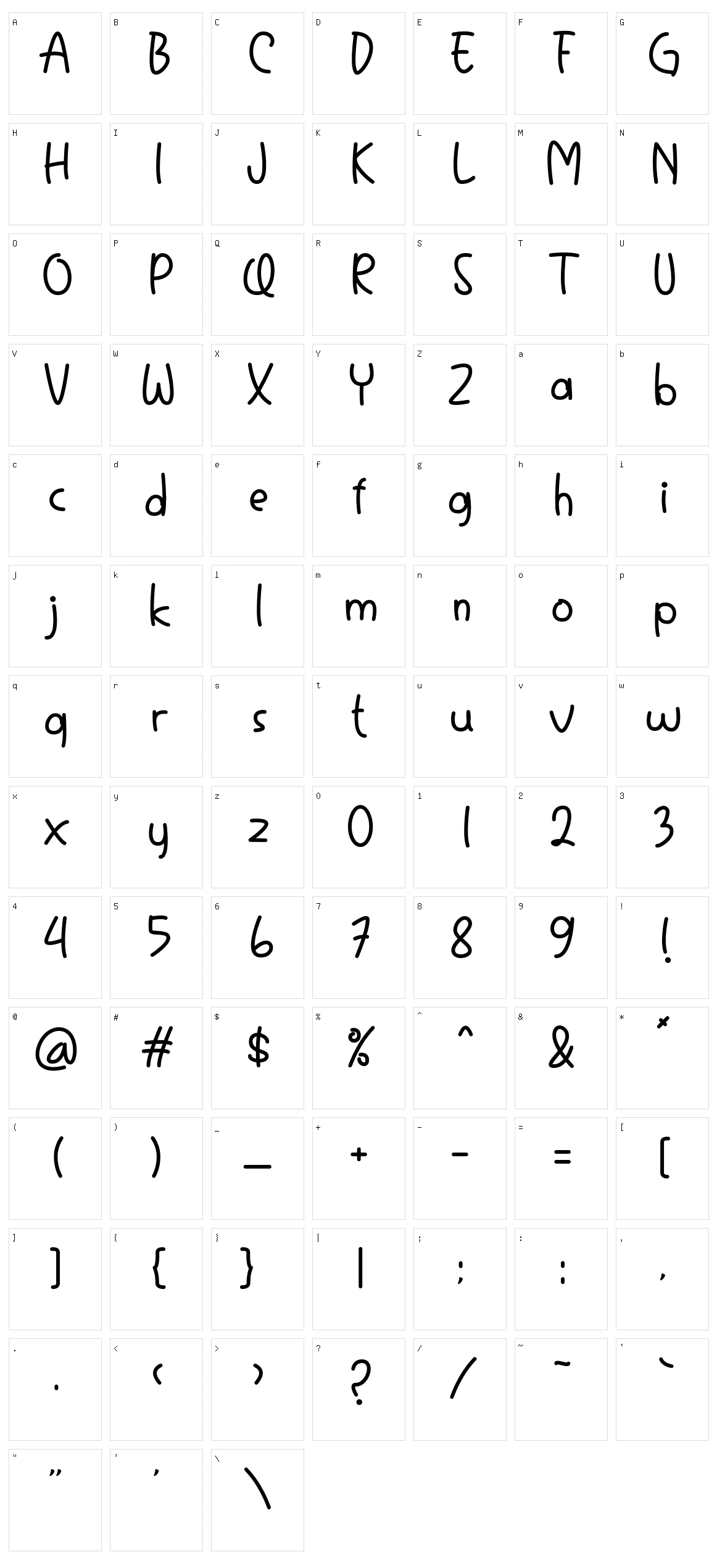
The free font Tomodachy is carefully designed by Jehoo Creative, showcasing a thoughtful balance of creativity and usability and falls under the Cartoon font style. When you download the ZIP file, it contains only 330.84 KB of font files, making it lightweight and quick to download. Please review the license details below to understand permitted usage and distribution rights. If license information is not available, we recommend using this font for personal projects only or contacting the author directly for commercial usage permissions.